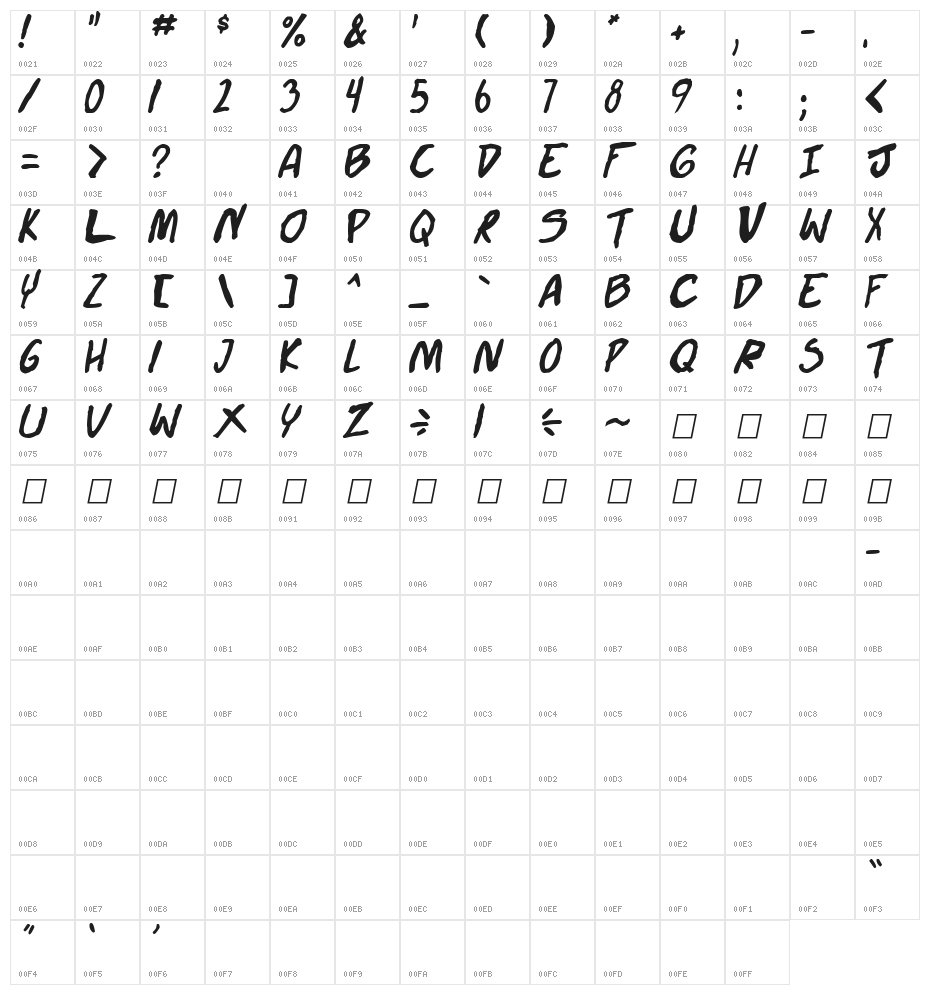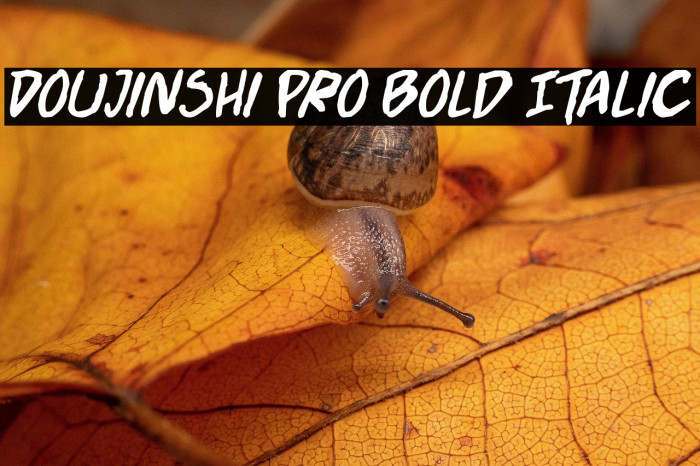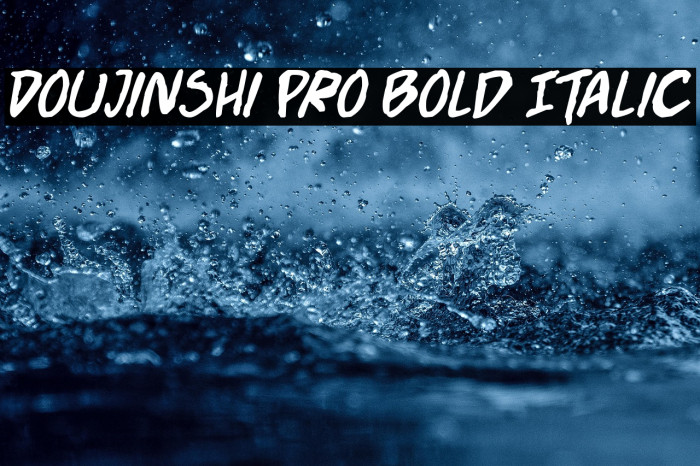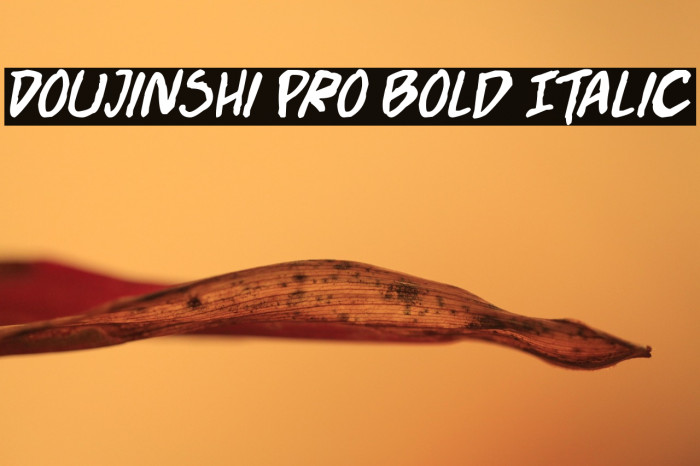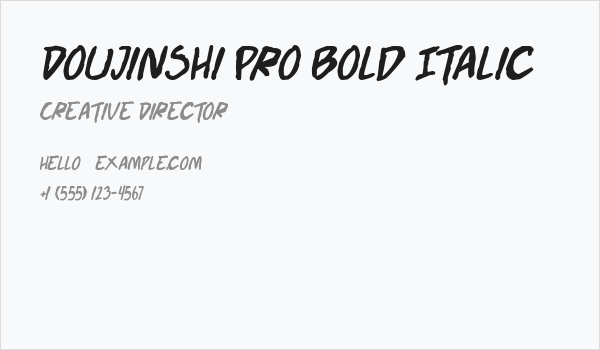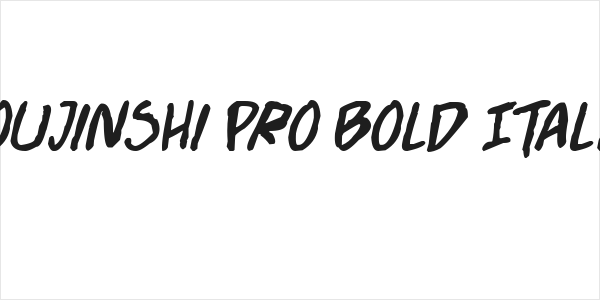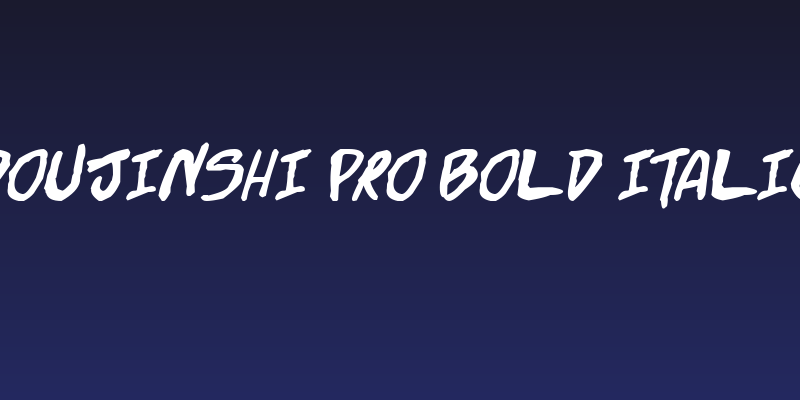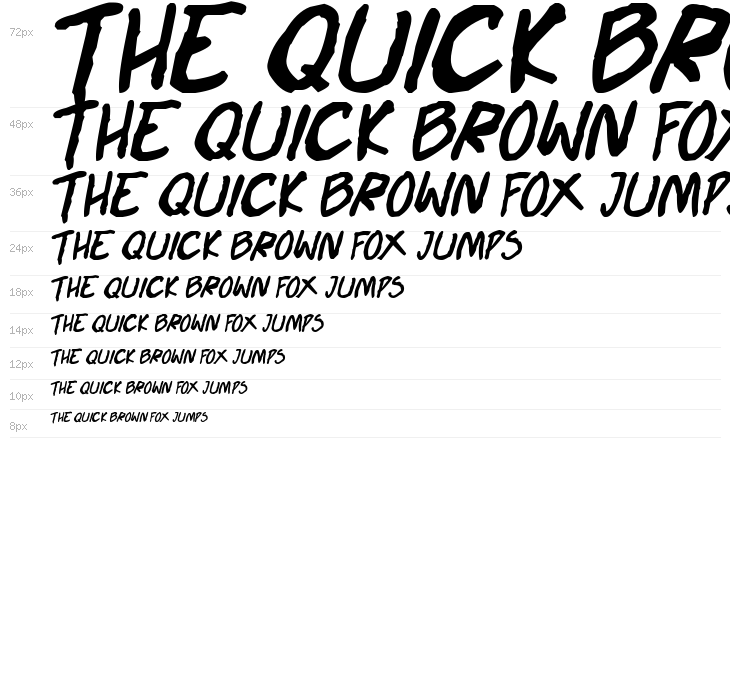
Doujinshi Pro Bold Italic Font
Doujinshi Pro Bold Italic Description
This font features a bold and italicized style with a handwritten, dynamic flair. The characters are slightly slanted, giving a sense of motion and energy. The strokes are thick and consistent, contributing to its bold appearance. The uppercase and lowercase letters maintain a cohesive style, with rounded edges and a casual, informal look. The numbers and special characters follow the same design principles, ensuring uniformity across all glyphs. This font's playful and energetic style makes it suitable for creative projects.
| Proposed Projects | Ideal for comic books, graphic novels, posters, and creative branding projects. |